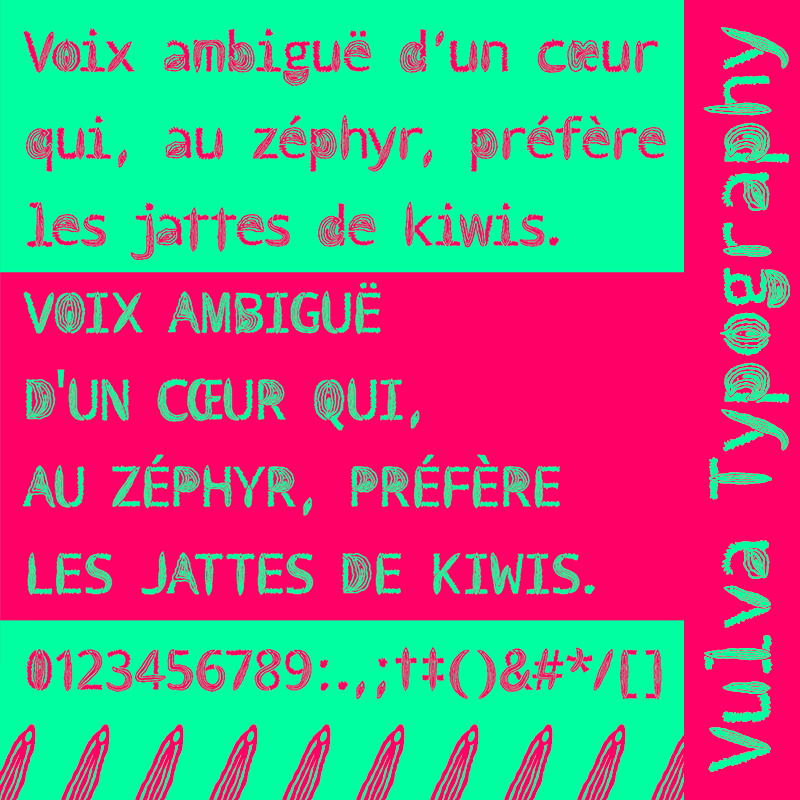
Preview and download Vulva Typography Font. Created by Penis Designer in Fancy Decorative styles with 100% Free license.
This typography aims to give women a tool to appropriate their own body, in a playful and aesthetic way. My work: https://www.instagram.com/felixfarjas/ Typography created with the android application named "Fonty" ( https://play.google.com/store/apps/details?id=com.palabs.fonty&hl=en_US ) and a little improved with glyphr studio. (This typography is french friendly) |